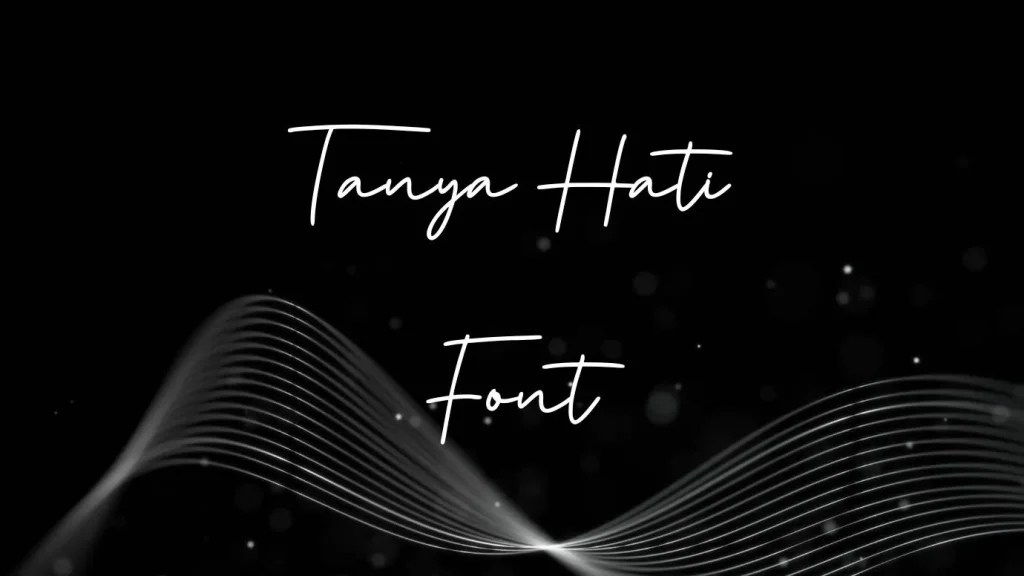
A font that is completely handwritten with unique monoline characteristics, Tanya Hati is a beautiful and classy typeface. Perfect for quotes, logotypes, business cards, ads, product graphics, stationery, and wedding invites, Tanya Hati brings a touch of elegance to any creation.
This font was utilized by various designers for a variety of projects. It is frequently employed in a wide range of designs, including comic book covers, cartoon posters, and movie posters. It displays results for all of your designs that are compelling and impactful.
Where to Utilize the Tanya Hati Font?
It is the most impressive among designers due to its distinctive styles and weights. Depending on your preferences, you can use it for a variety of projects. This typeface is frequently used for a variety of projects, including invitations, quotes, headlines, titles, branding, and others.
It is primarily used in offices to create various types of documents, including presentations, reports, and reports. Additionally, it’s employed in the creation of a few chic logos. If you want to create innovative projects, then the shelley font is the perfect choice for all your fun tasks and projects.
The family includes only one weight. This Font is a versatile typeface that can be used in a variety of design projects. Down here you can see the features of this font which comprises alphabet structure and all that you will need to know.
| Name | Tanya Hati Font |
| Style | Handwritten |
| Designer | Virgiawan Listanto |
What type of font is Tanya Hati?
It is a font that is entirely handwritten and has distinctive monoline-style features. Tanya Hati is a gorgeous and elegant typeface that is perfect for quotations.